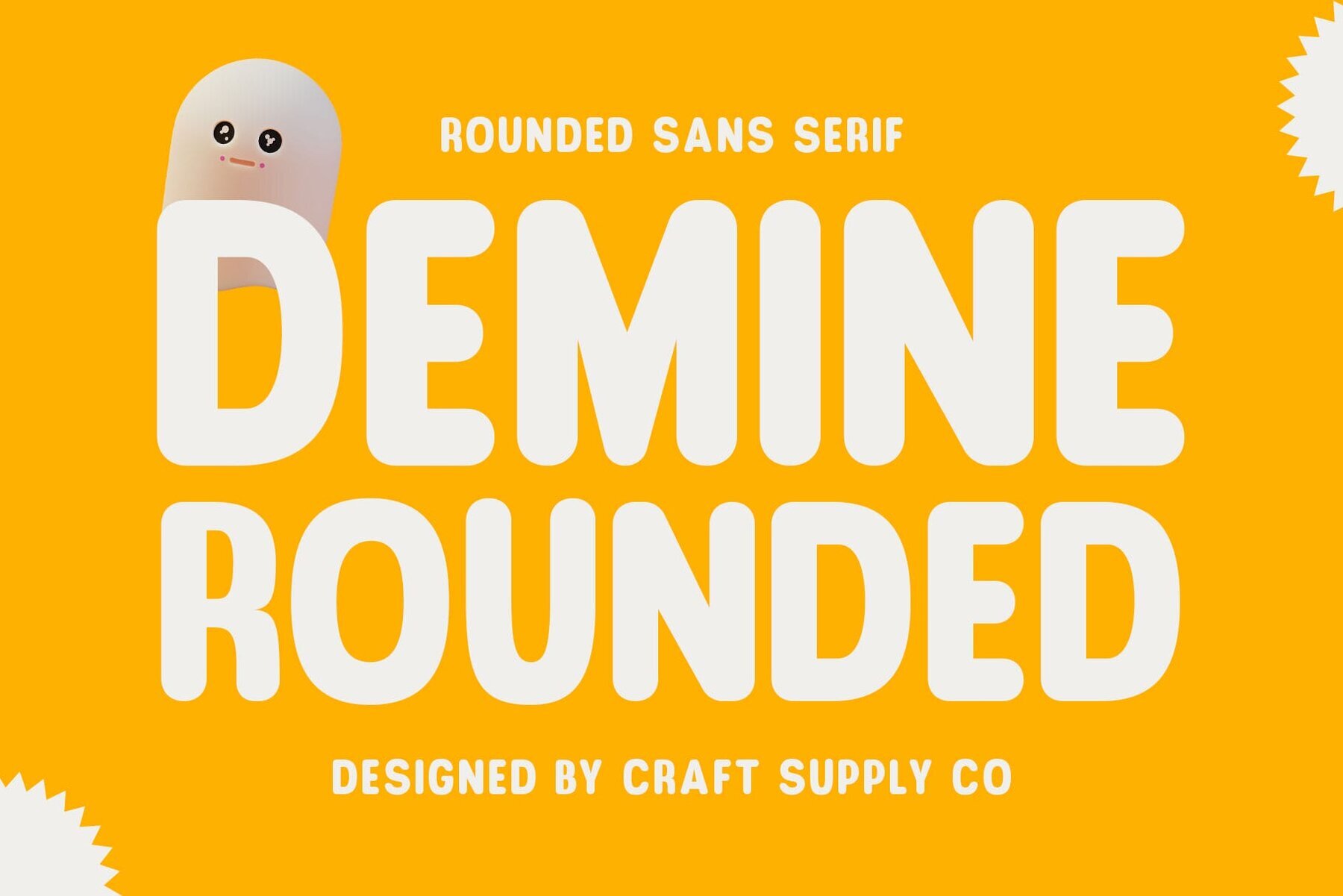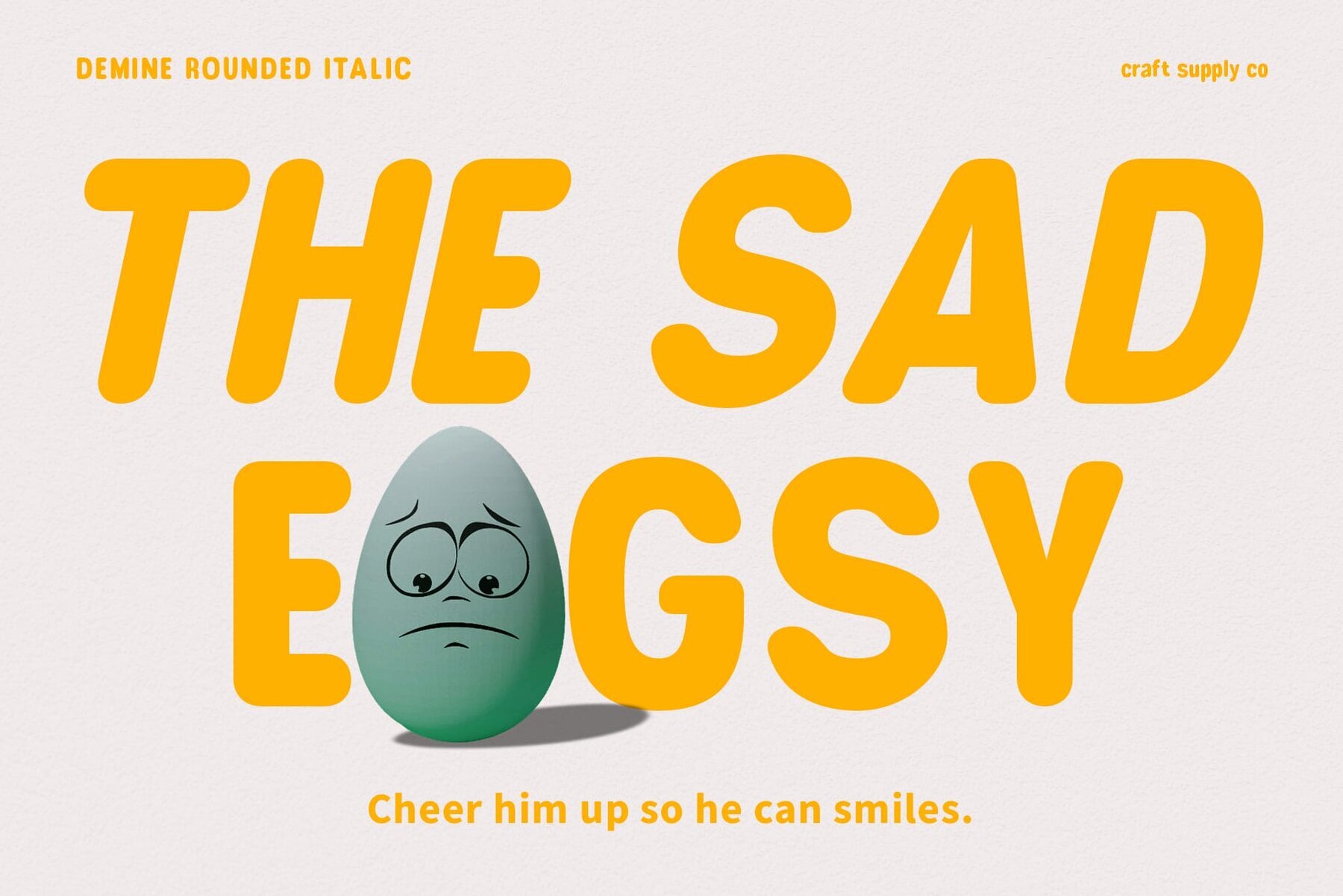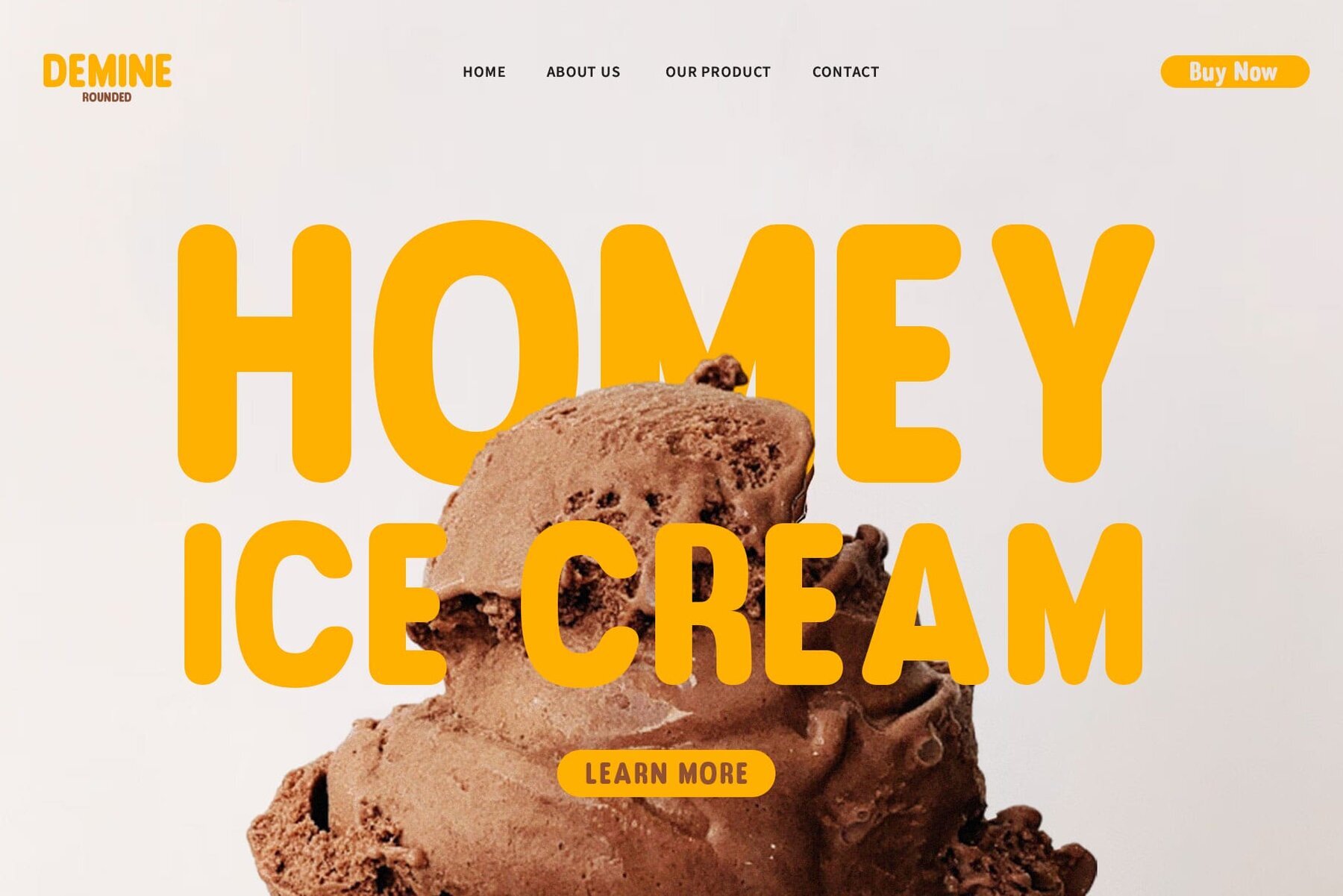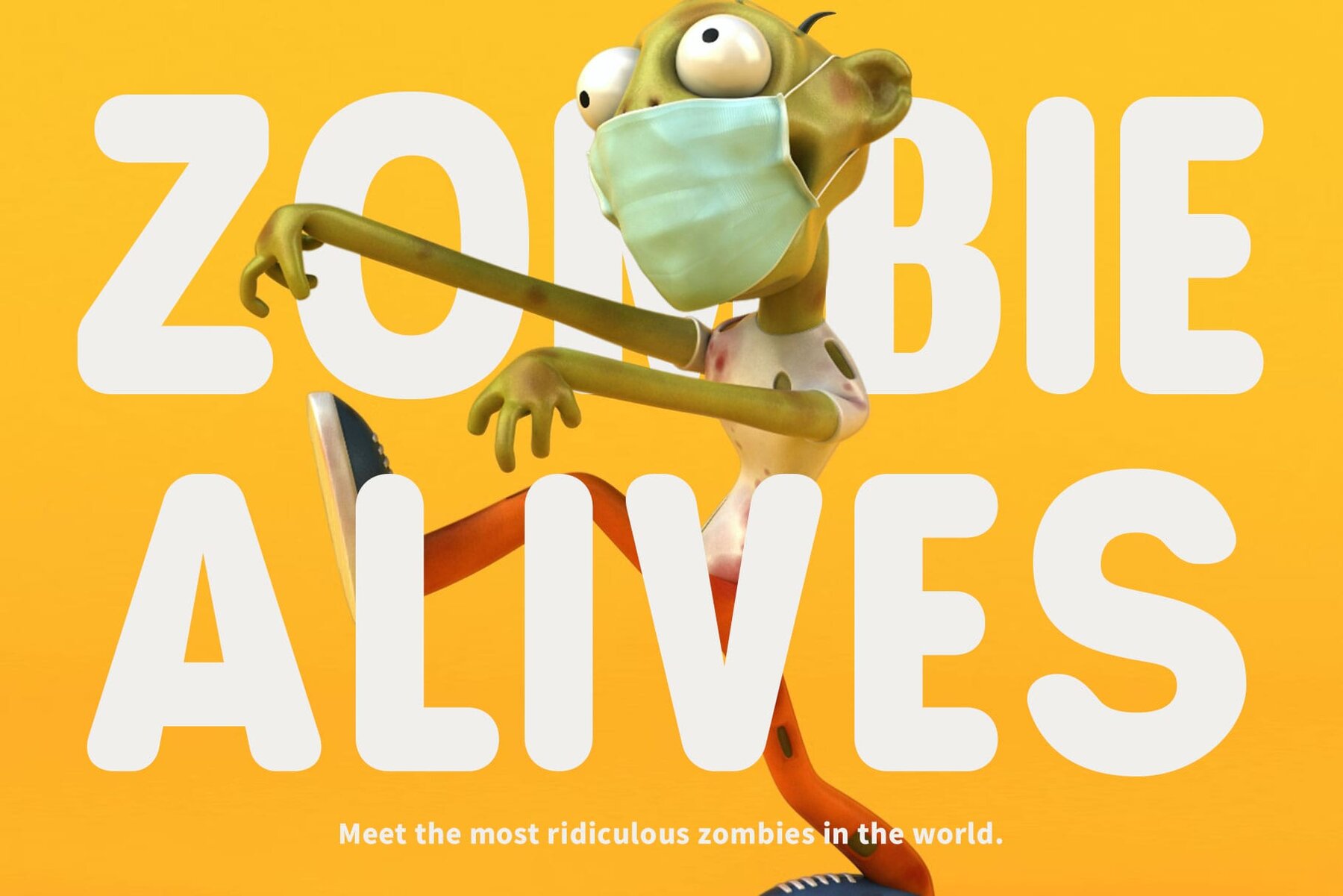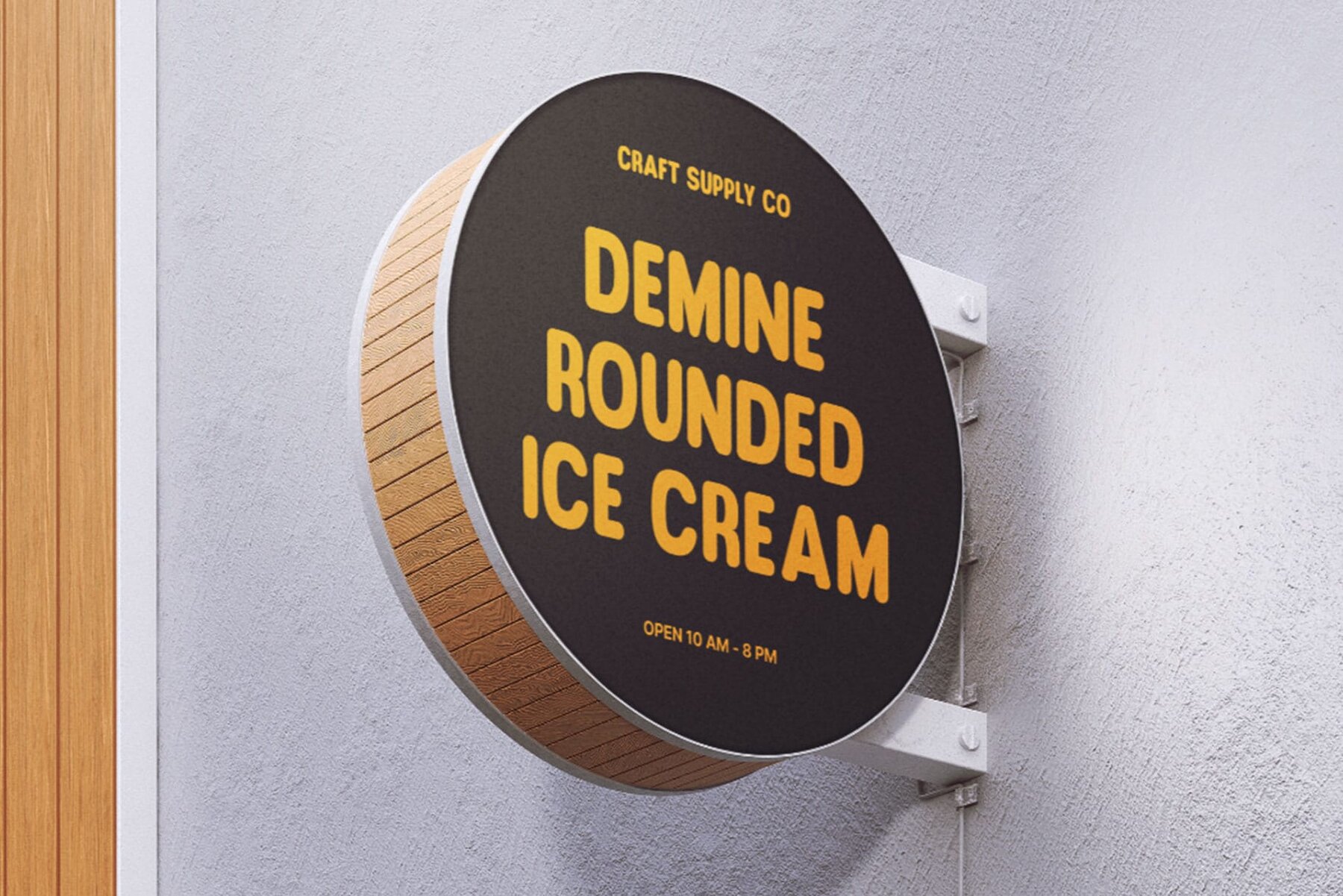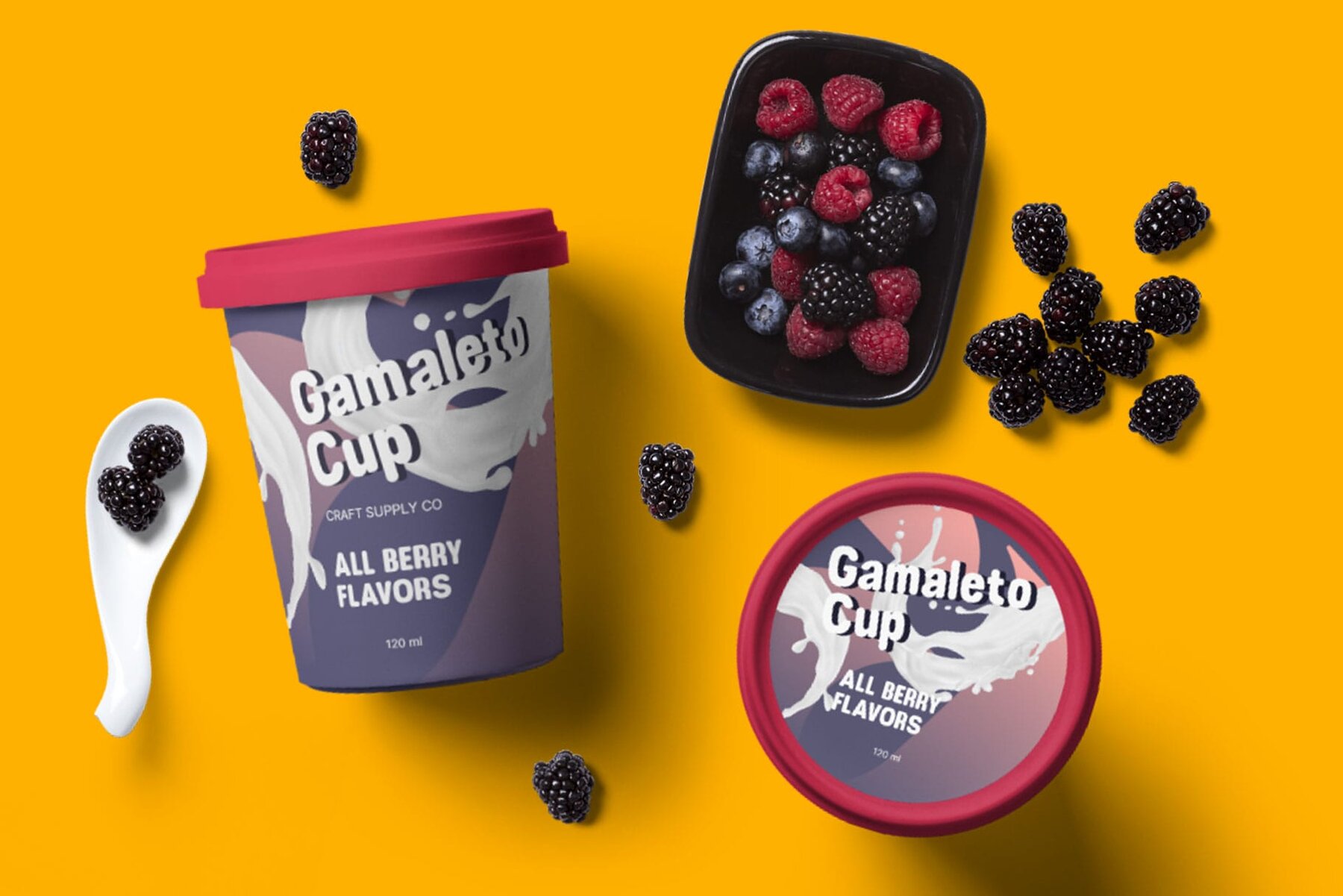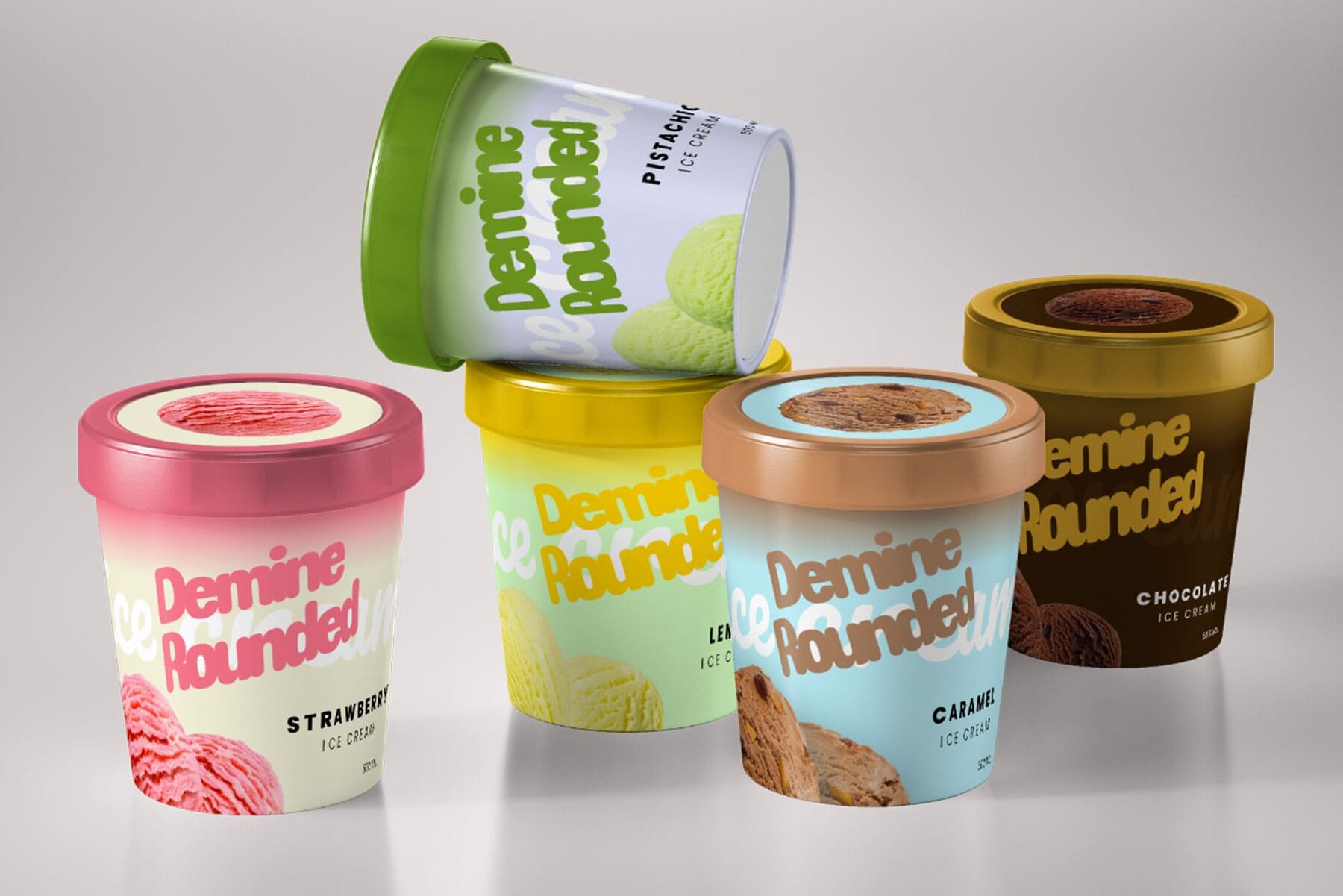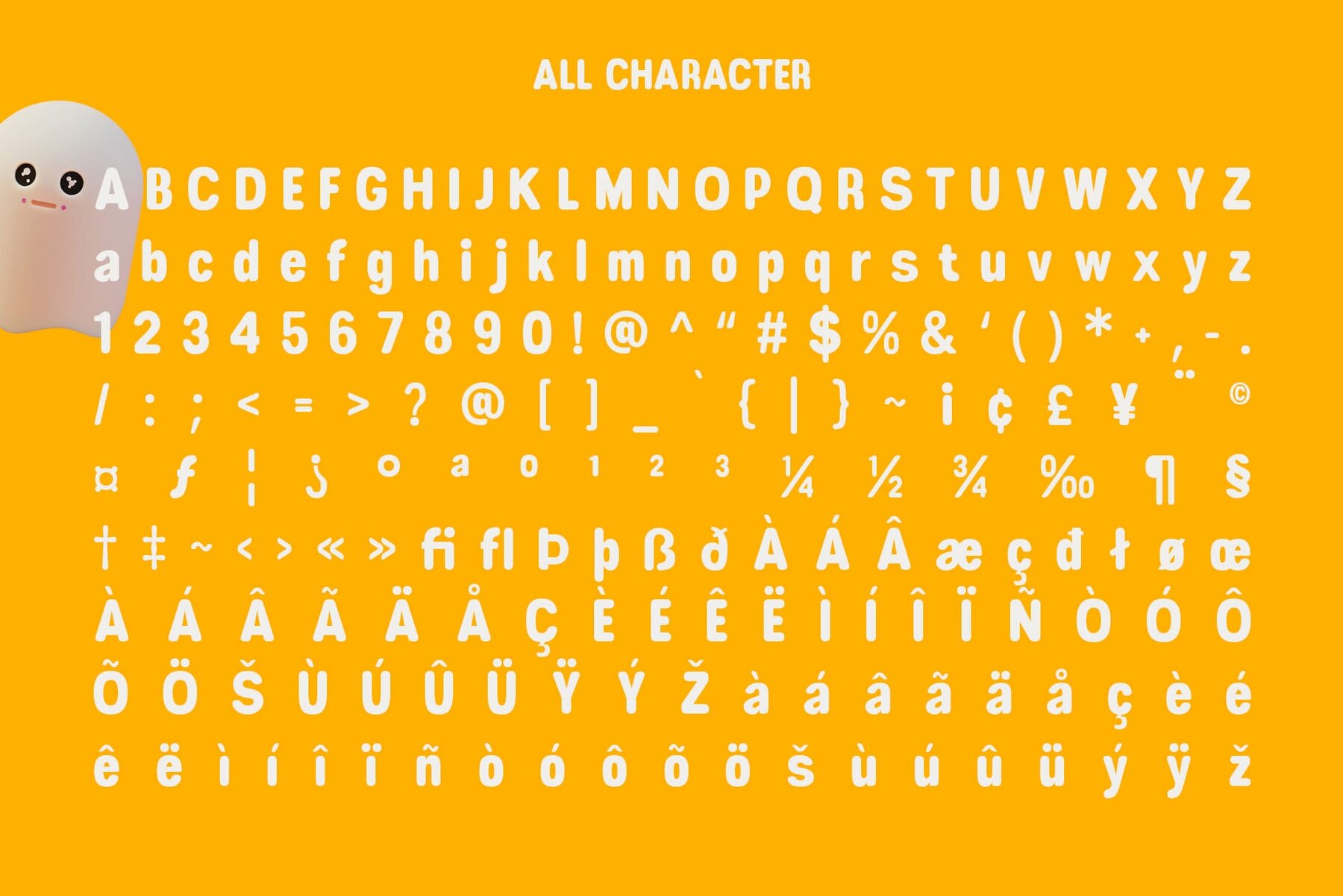
Demine Rounded Font
Demine Rounded is a delightful sans serif typeface, characterized by its rounded edges and bold demeanor. Each letter exudes charm and friendliness, making it perfect for adding playful elements to your designs. This font is tailored for display purposes, shining in various contexts such as poster designs and children's book covers. Its bold and rounded appearance ensures your message captures attention effectively. Whether you're working on playful branding projects, cheerful invitations, or quirky product packaging, Demine Rounded is your go-to choice. Its lighthearted demeanor brings joy and whimsy to any design endeavor. With its rounded boldness and legible letterforms, this font is designed to be user-friendly and accessible to a wide audience. Its playful charm appeals to both young and old, making it versatile for designers of all levels. This typeface can be used without requiring specialized software. If you have any inquiries or need assistance, please feel free to contact us. We appreciate your support in enhancing your creative projects!Demine Rounded: Playful Sans Serif Font
Charming Rounded Boldness
Ideal for Fun-filled Projects